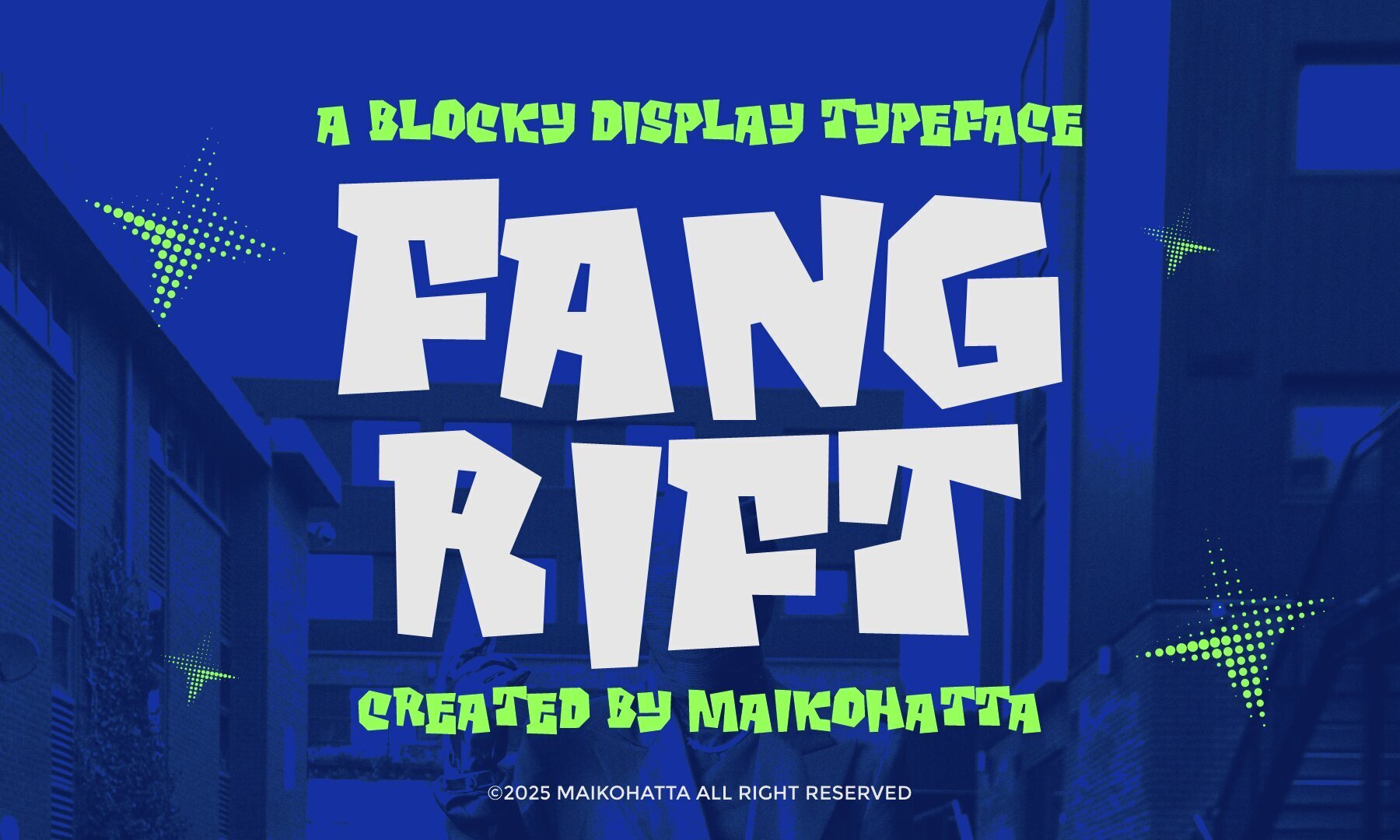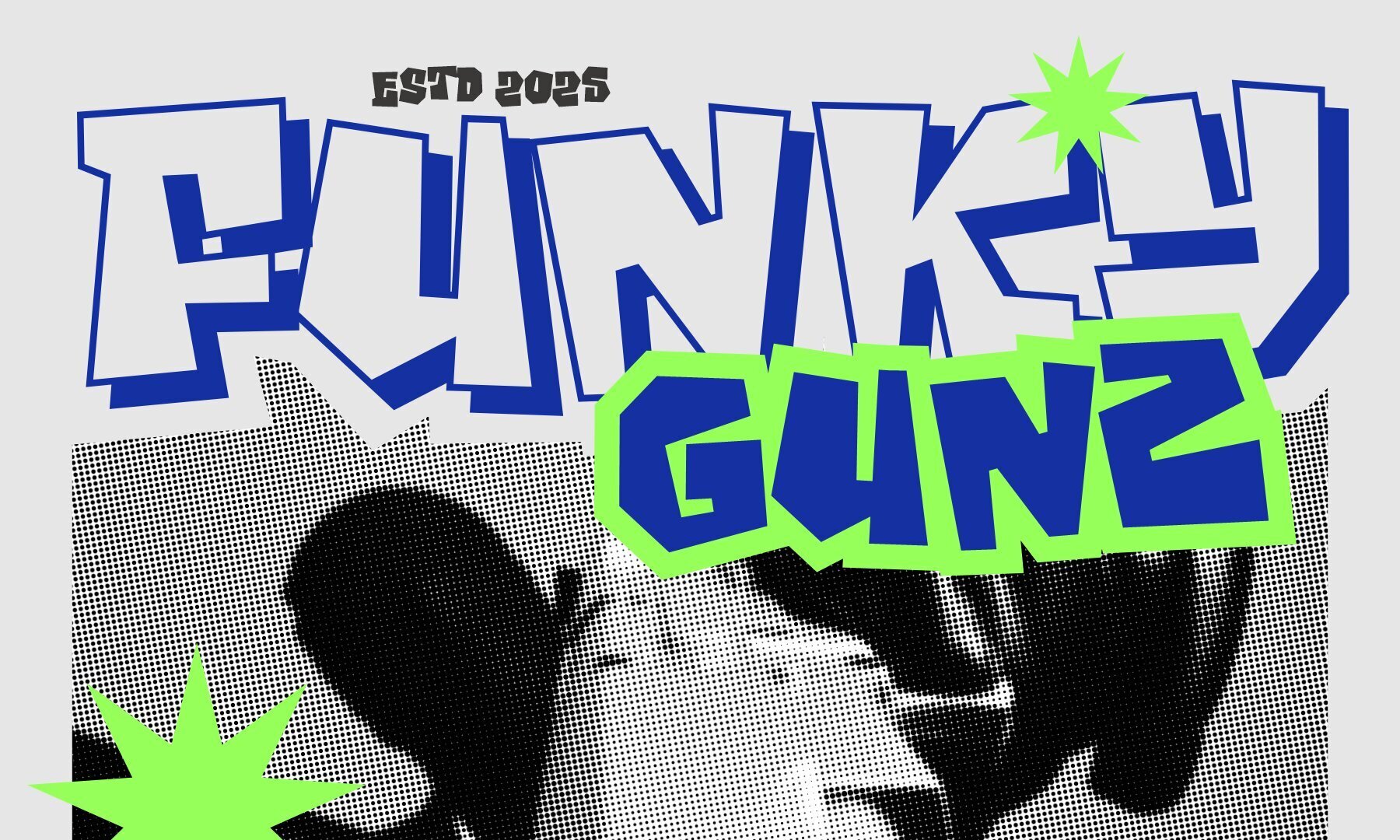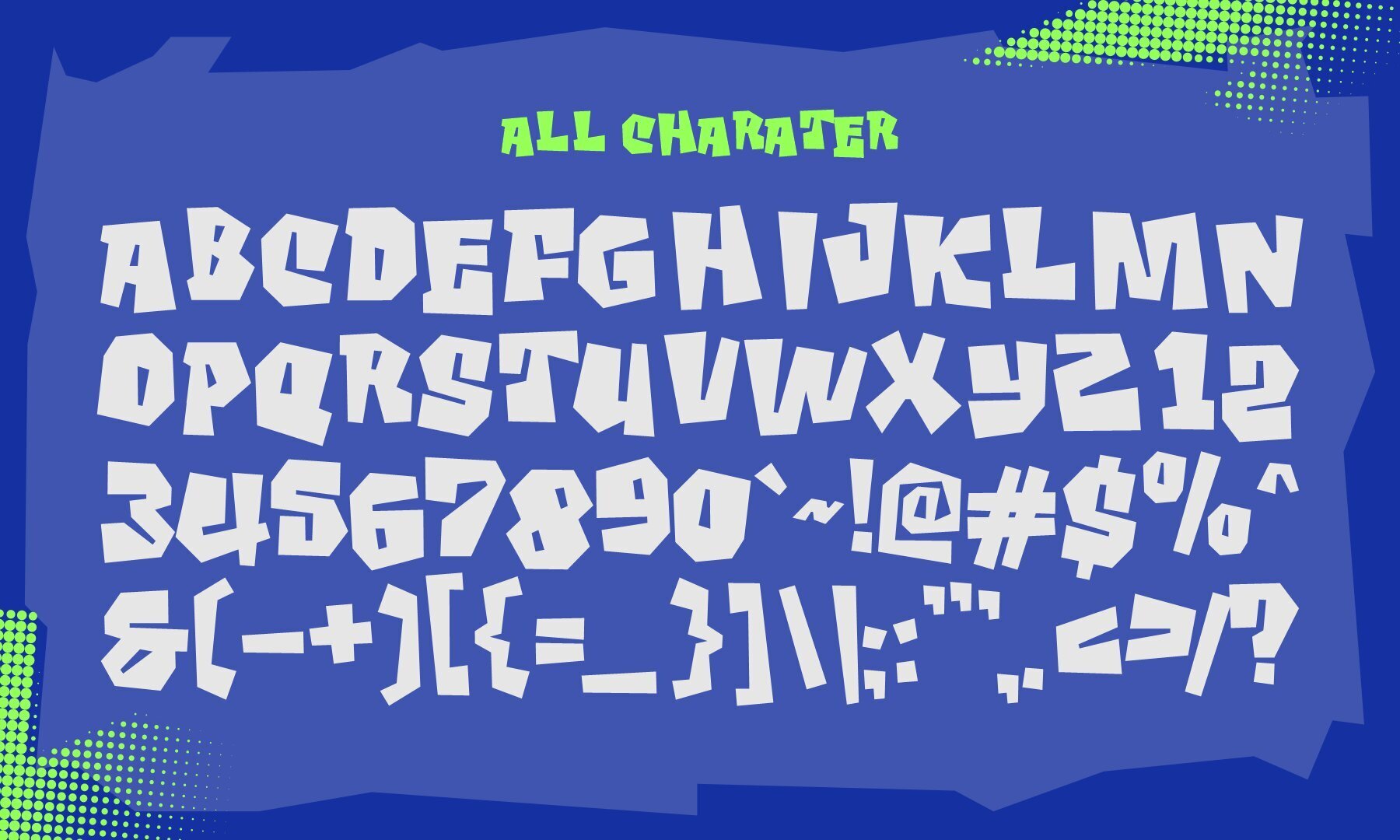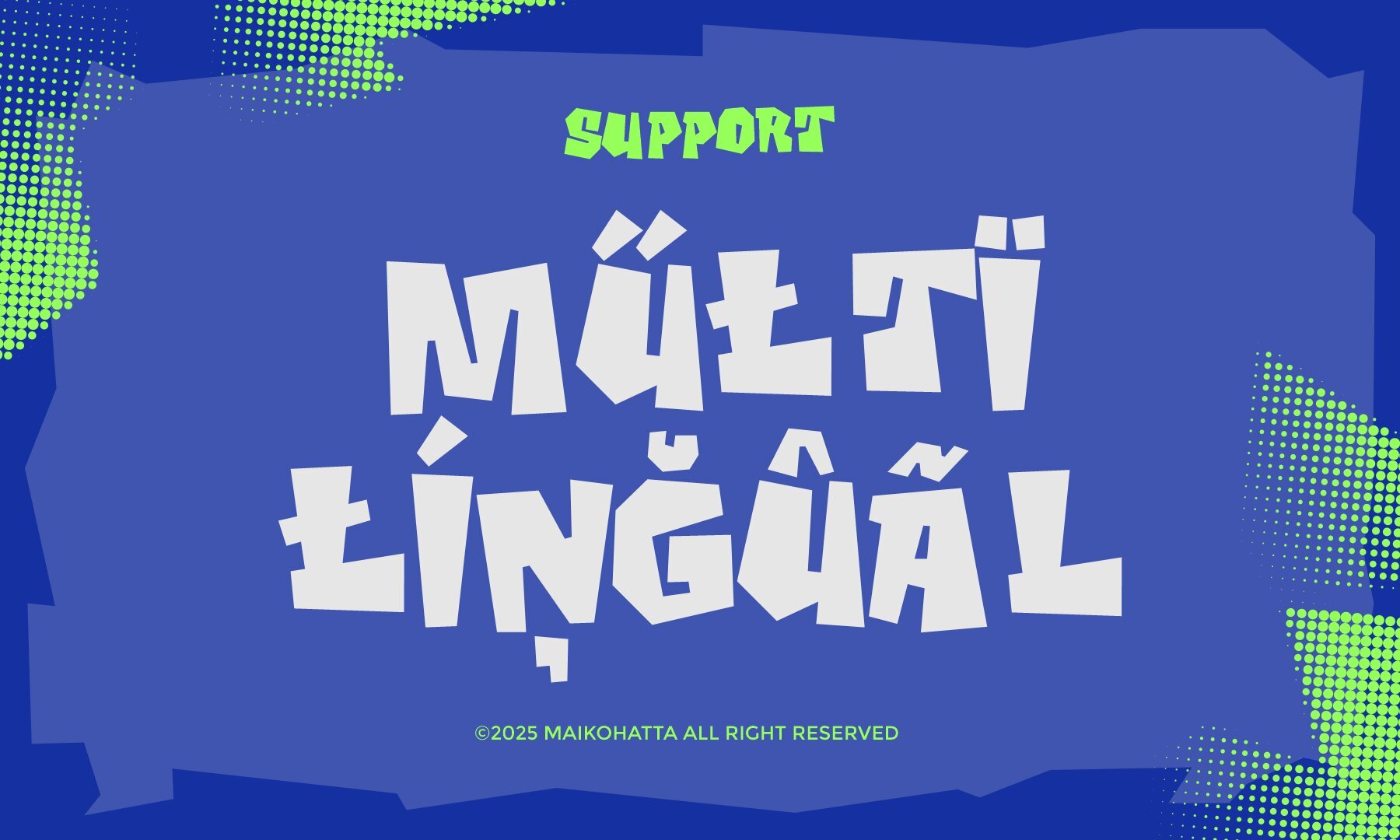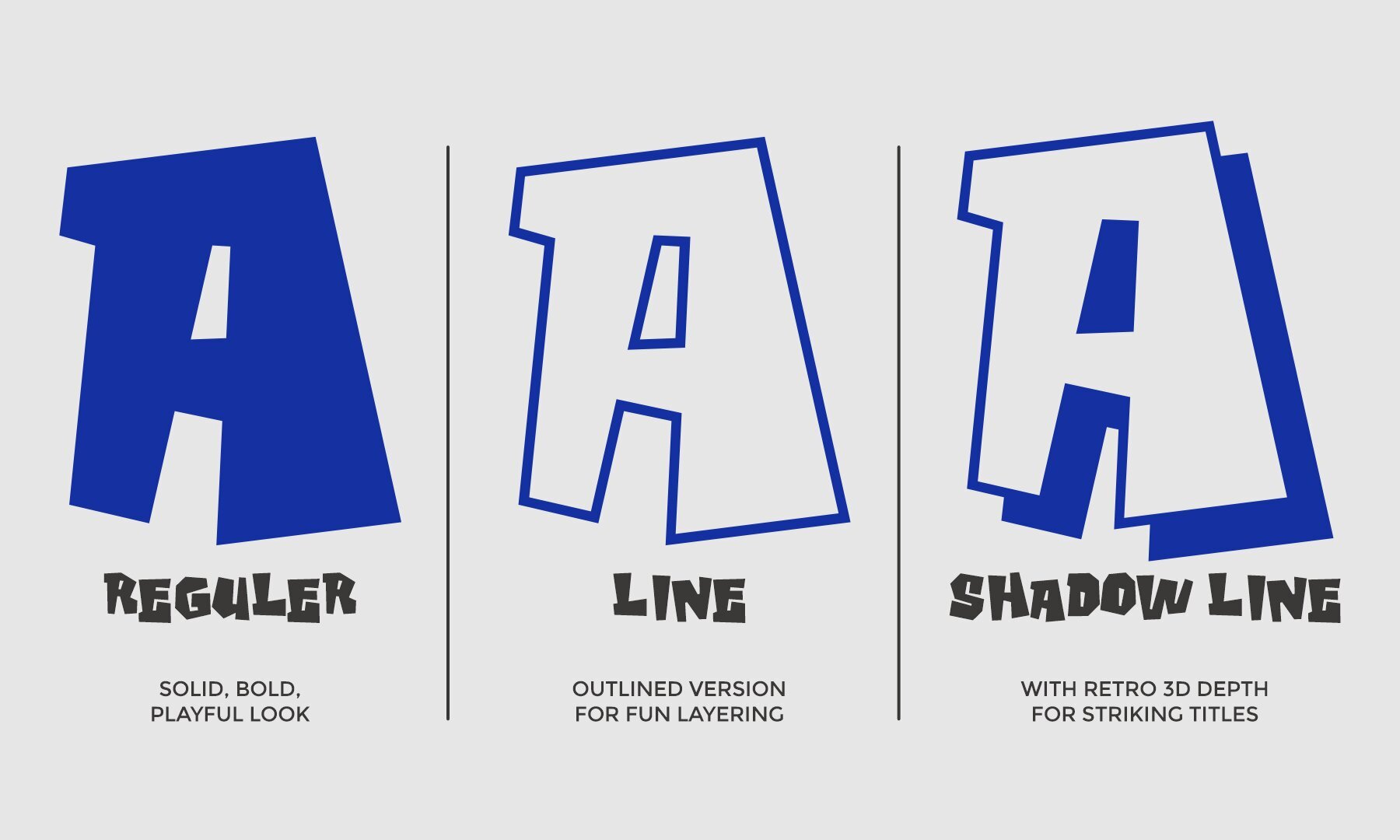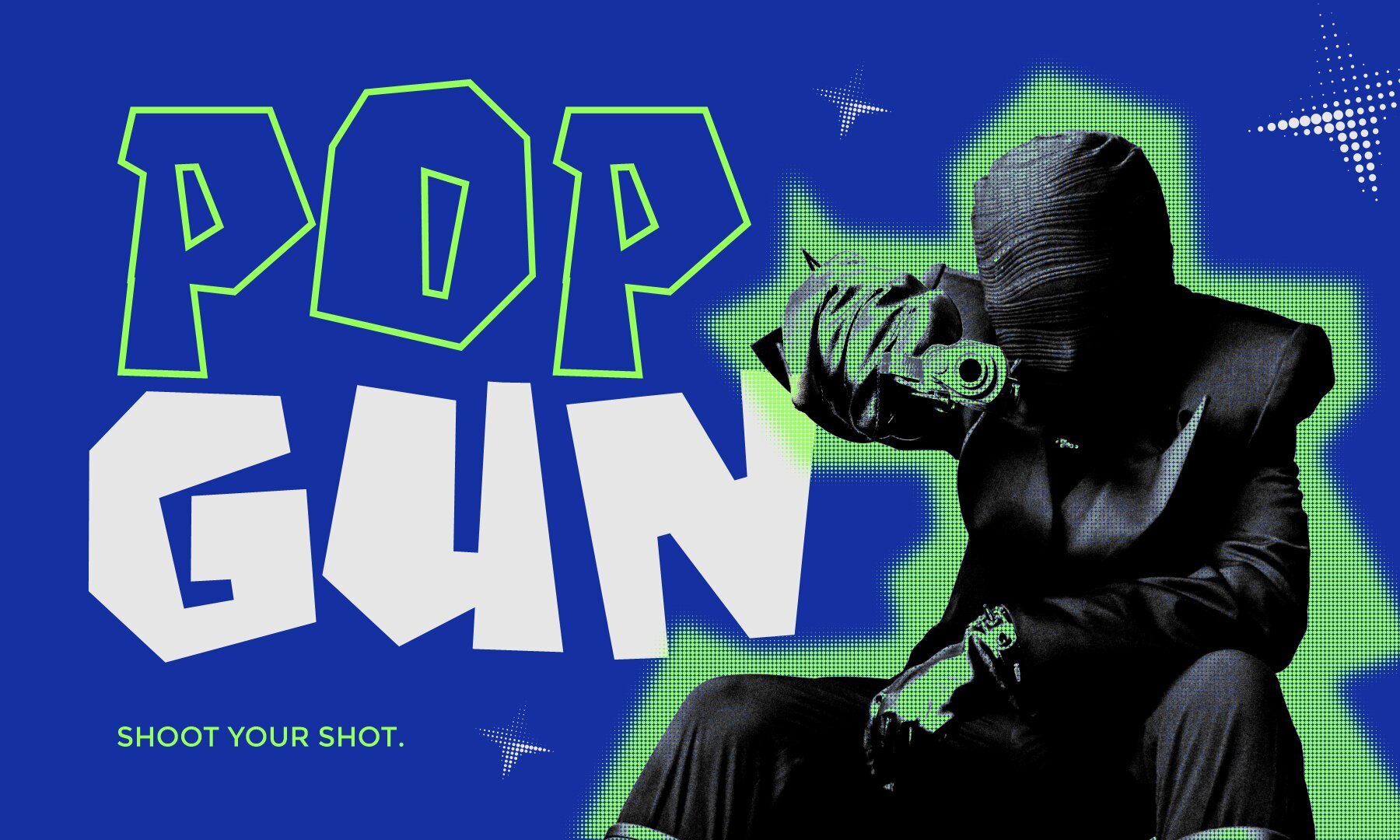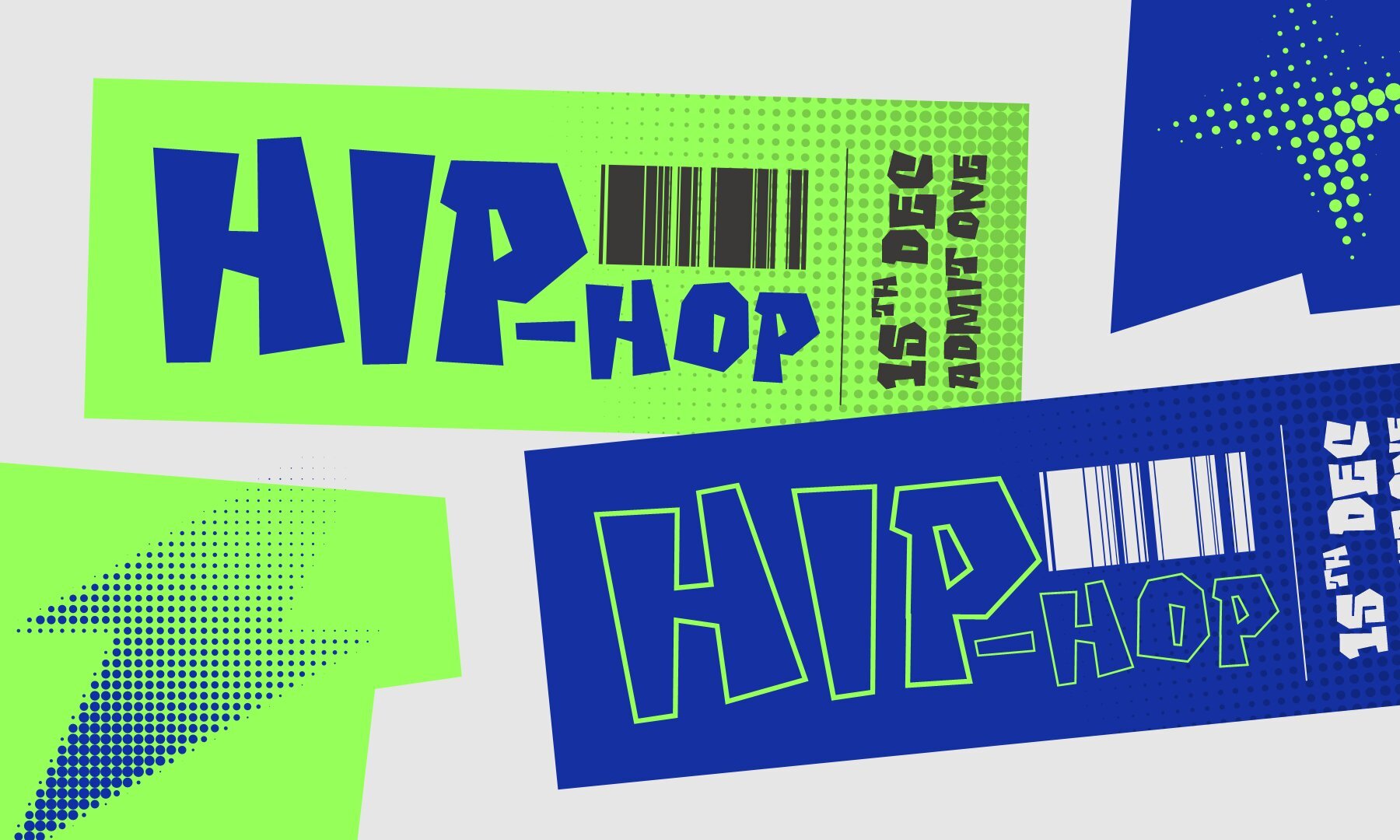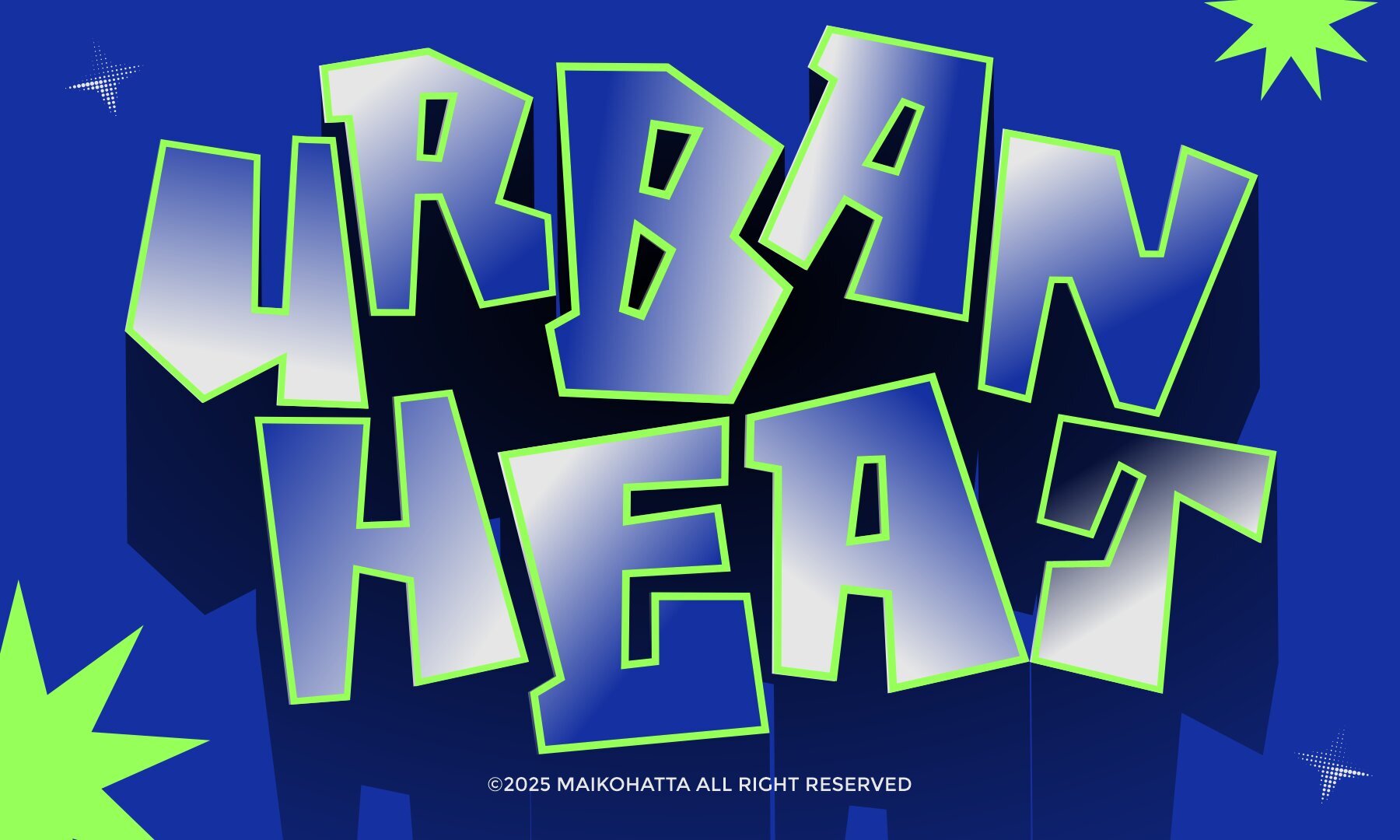
Fang Rift Font
Fang Rift is a bold, blocky display typeface designed to add energy and presence to any project. Chunky, uneven letterforms infuse this font with a sense of rebellion and urban style, ideal for posters, games, album covers, and attention-grabbing headlines. The playful geometric edges evoke a rugged, comic-inspired character, striking a balance between edgy style and an approachable tone.Fang Rift: Bold Blocky Display Font
Whether you're designing for modern urban themes or expressive creative projects, Fang Rift captures attention through its strong visual impact and distinct personality. Its versatility makes it well-suited for both digital and print applications that demand a memorable, standout look.Key Features